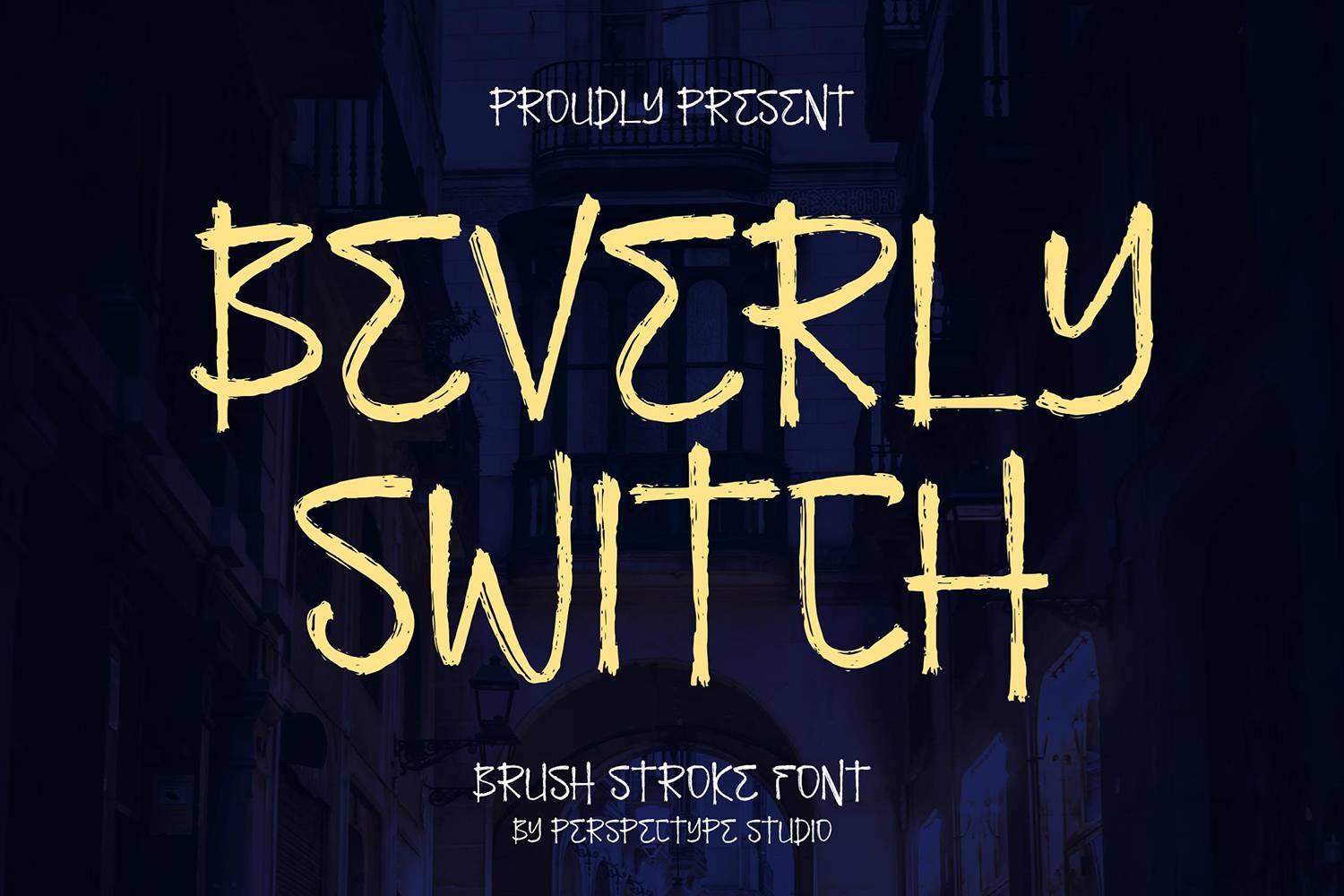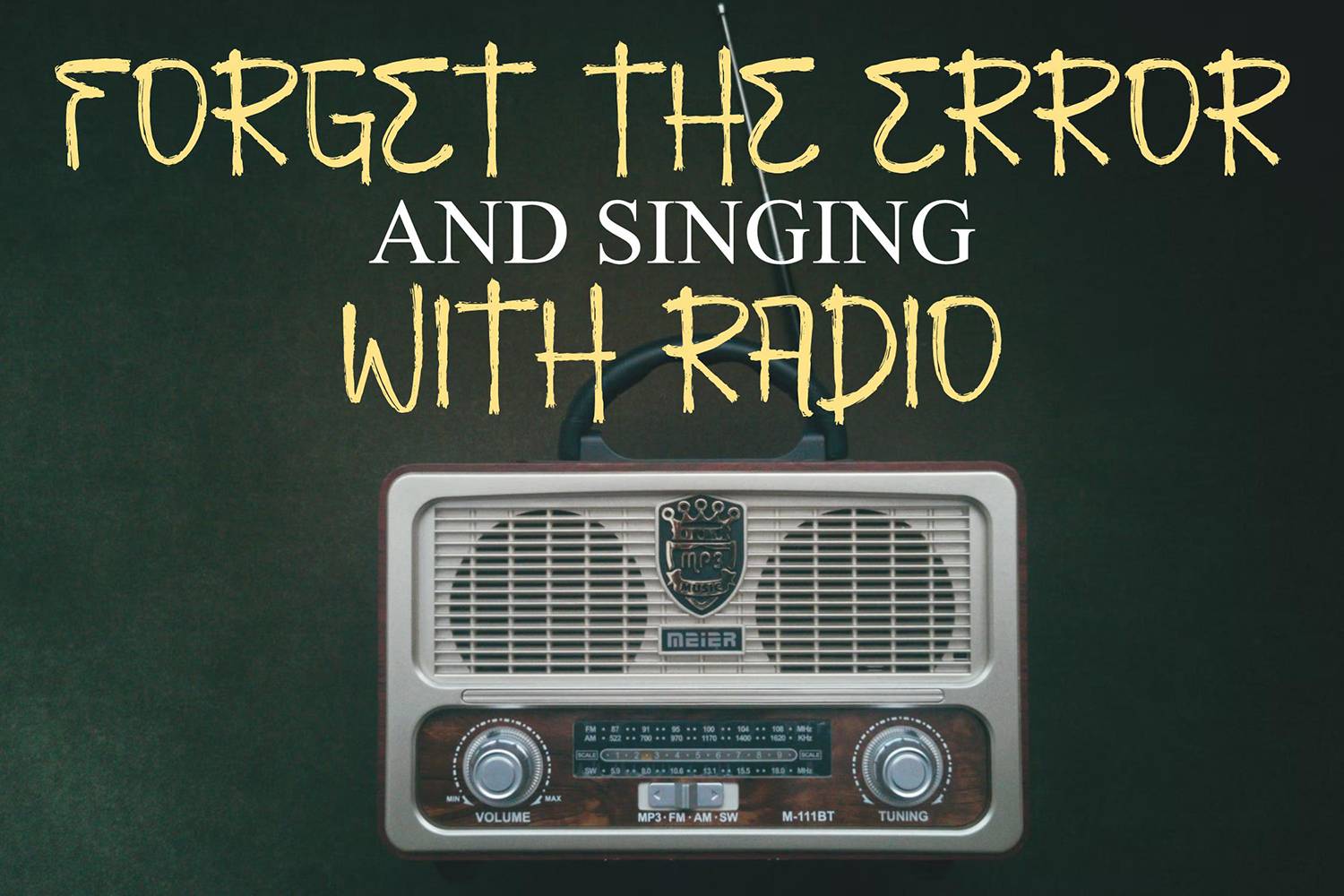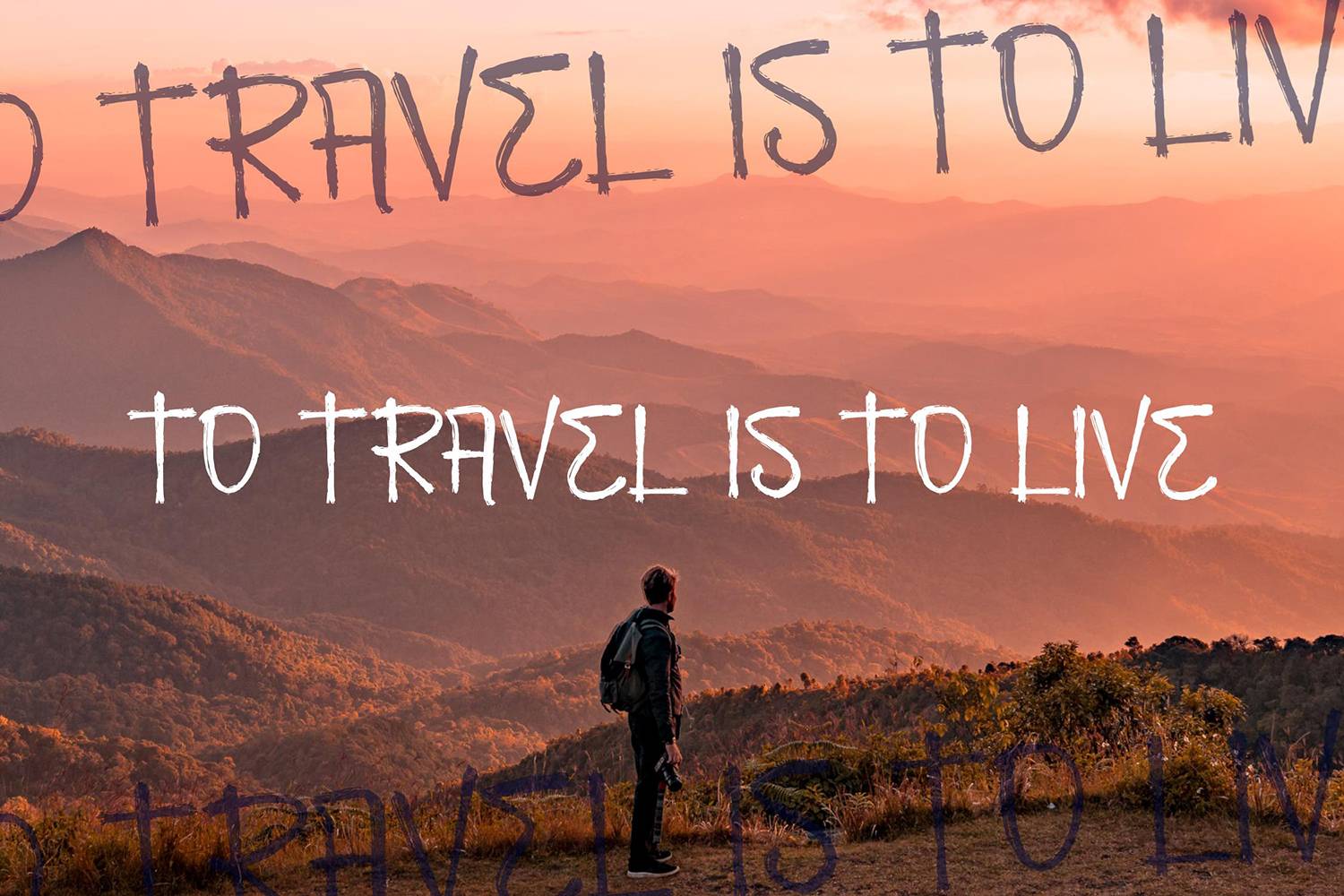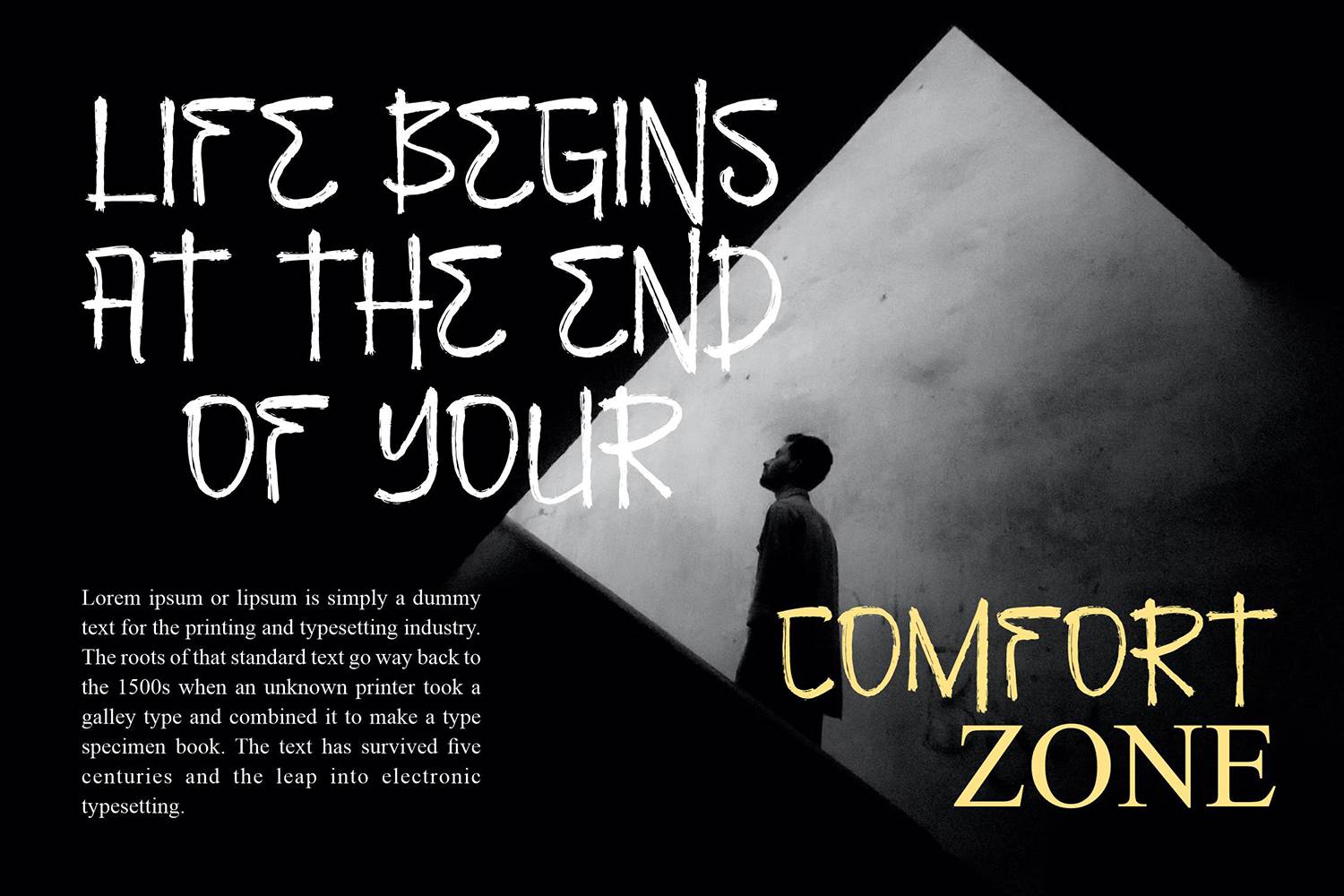
Beverly Switch is a quirky, hand-drawn sans serif font with a playful, slightly rough texture that adds personality and warmth. Its tall, narrow letters and uneven strokes give it a casual, artistic vibe, making it perfect for creative projects, informal branding, or anything needing a unique, approachable style. This font works best in headlines, logos, and designs that want to convey individuality and a relaxed, friendly mood.
Beverly Switch Font
About Beverly Switch Font